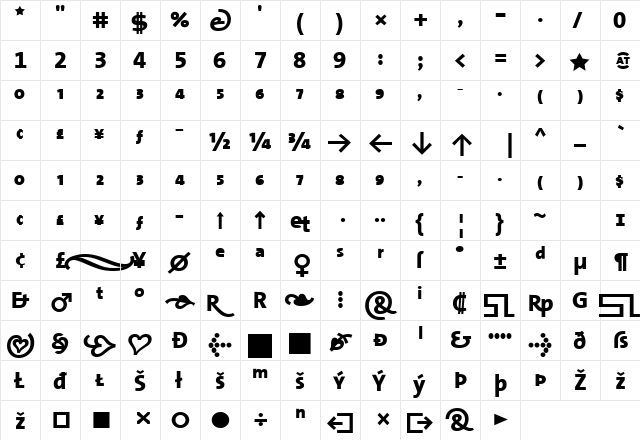
TheSansExtraBold-Expert Regular Font Preview
TheSansExtraBold-Expert Regular
Design Context for TheSansExtraBold-Expert Typeface
TheSansExtraBold-Expert offers clean, dependable letterforms without strong stylistic allegiance, making it a practical choice for designers who need flexibility. Its bold stroke weight gives it real presence on the page.